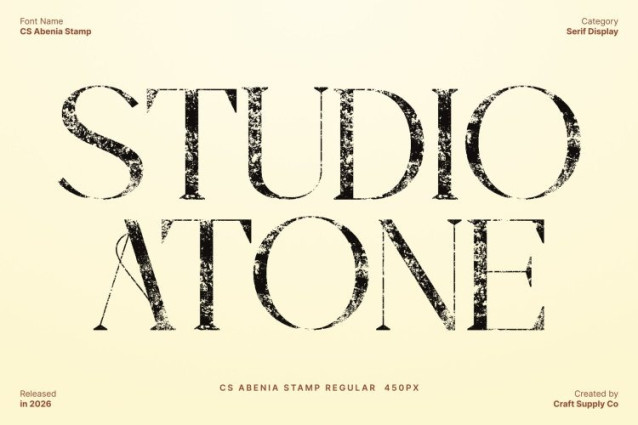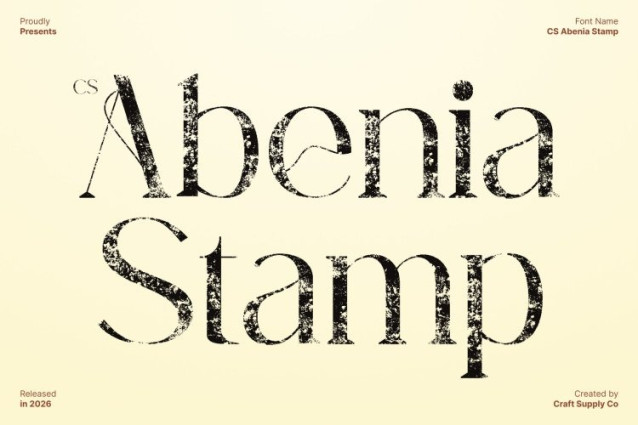
CS Abenia Stamp Font This is an elegant serif typeface designed to express sophistication, balance, and timeless beauty. Its well-proportioned letterforms and graceful serif details create a polished visual rhythm that feels confident and high-end. Every character is carefully crafted to deliver a refined appearance that elevates typography into a statement of taste and quality.
Vintage Stamp Texture with Artistic Character
The distinctive stamp effect adds a vintage soul to the font, introducing textured impressions and subtle imperfections inspired by traditional print techniques. These organic details create an artistic, handcrafted feel, giving the typeface depth, warmth, and historical charm. The result is a serif font that feels expressive, authentic, and rich in character.
Classic Structure with Modern Sensibility
Rooted in classic serif tradition, this font incorporates clean construction and contemporary balance to remain visually relevant. This blend of old-world elegance and modern clarity allows the font to move effortlessly between heritage aesthetics and modern design needs, making it both stylish and versatile.
Perfect for Premium Branding and Creative Projects
Ideal for fashion branding, editorials, packaging, logos, and creative layouts, this font enhances visuals with a sense of luxury and vintage sophistication. Its elegant stamped texture delivers a refined yet expressive typographic voice, making it an excellent choice for designers seeking timeless character with artistic impact.